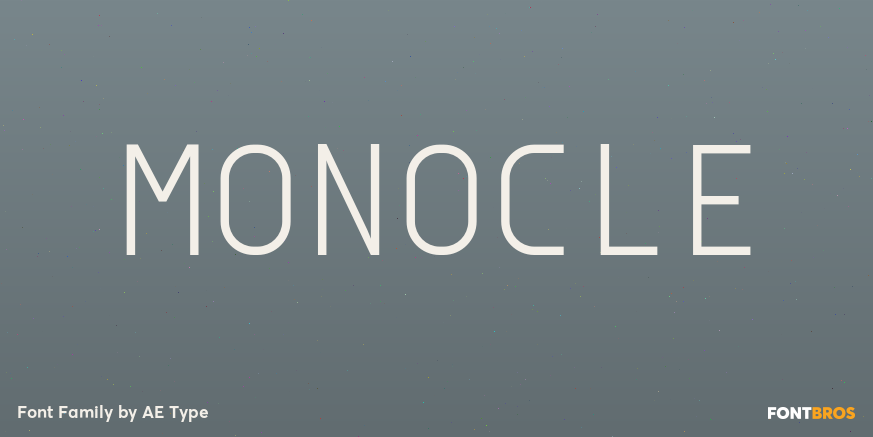
Monocle
About Monocle
Monocle is a clean and contemporary monospaced geometric sans that excels in titling, data and numerical settings due to it\’s clear and systematic design. The capitals-only format increases the harmony between letter pairings, opposing the irregularity…